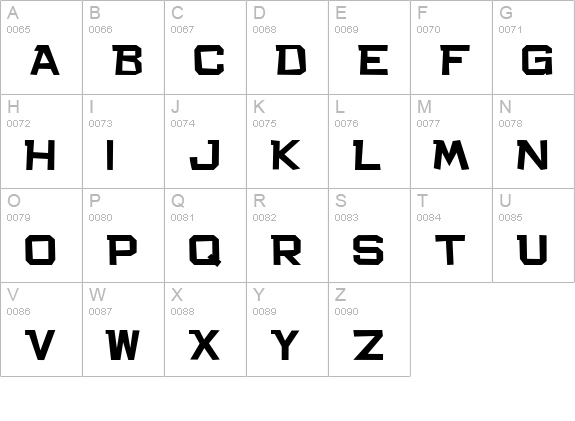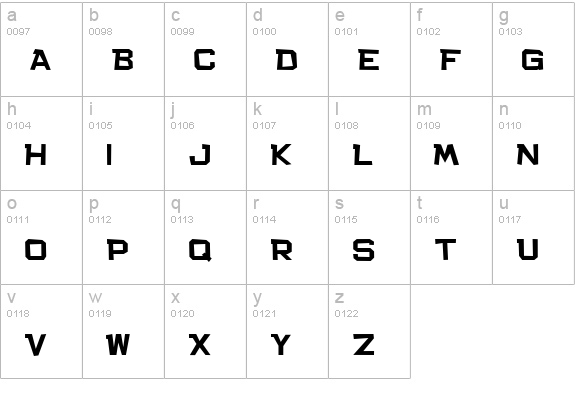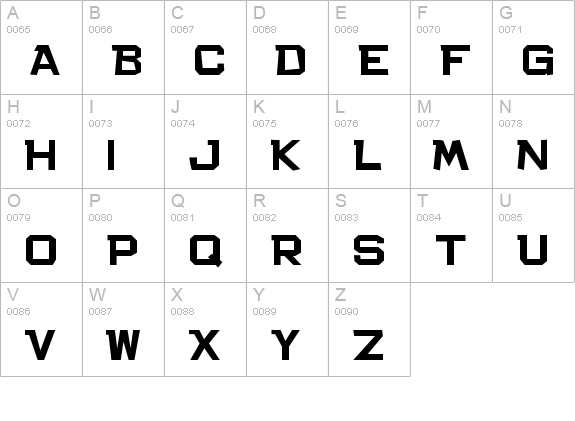
Bachelor Pad JL Font Details
Introducing Bachelor Pad JL Font, a stunning typeface that exudes elegance and sophistication. This font is the perfect choice for those seeking a timeless and refined look in their designs. With its sleek and clean lines, Bachelor Pad JL Font is sure to make a lasting impression. What sets this font apart is not only its impeccable design but also its accessibility. Bachelor Pad JL Font is freely available to download at FontsMarket.com, allowing users to effortlessly incorporate this beautiful typeface into their projects. Whether you're a professional designer or a creative enthusiast, this font is sure to elevate your work to new heights. The versatility of Bachelor Pad JL Font is another noteworthy feature. It seamlessly adapts to various design styles and can be used for a wide range of applications, from branding and advertising to packaging and editorial design. Its legibility and readability make it an excellent choice for both headlines and body text, ensuring that your message is conveyed with clarity and impact. With Bachelor Pad JL Font, you have the freedom to unleash your creativity and bring your visions to life. Its timeless elegance and modern appeal make it a go-to font for those who appreciate the finer details in design. So why wait? Download Bachelor Pad JL Font today and experience the beauty and versatility of this remarkable typeface.